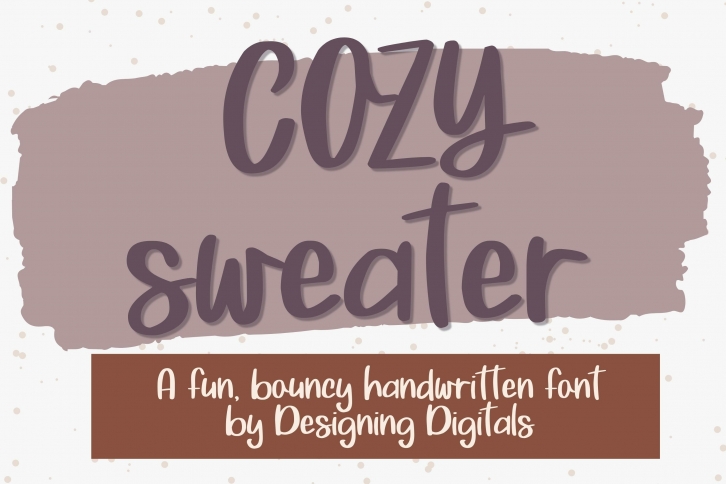
Cozy Sweater- A Fun Bouncy, Handwritten is a trendy and unique font with an authentic style. It was designed by Designing Digitals and it's a great choice for creative people who need such a font. It was released on August 29, 2022 and the file size is 7.16 MB. Cozy Sweater- A Fun Bouncy, Handwritten will add an organic vibe to any design idea!